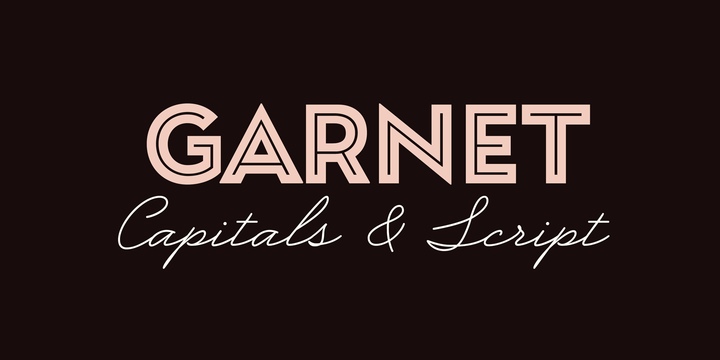
Garnet Font
Garnet Font is perfect for luxury jewelry branding, precious stone certifications, high-end fashion campaigns, wine estate logos, vintage boutique signage, romantic wedding invitations, elegant cosmetic packaging, antique auction catalogs, upscale gift shop materials, and refined anniversary celebrations.
What makes Garnet Font so exciting is its exceptional ability to embody the deep, rich elegance and timeless allure of precious gemstones through letterforms that seem to glow with inner fire and sophisticated luxury. This exquisite typeface captures the essence of rare beauty and enduring value with characters that reflect the same captivating brilliance found in perfectly cut garnets. The font's refined design elements perfectly balance classical elegance with contemporary sophistication, creating a powerful tool that communicates exclusivity, passion, and refined taste, making it an indispensable choice for brands targeting discerning audiences who appreciate authentic luxury and timeless beauty.
Garnet Font comes in multiple font families including Regular, Bold, Light, Italic, Bold Italic, Brilliant, Faceted, and Vintage variations. Each family member maintains the core precious stone characteristics while offering different luminosity levels and stylistic approaches to suit various luxury design requirements.
The jewel-like precision in Garnet Font makes it particularly suitable for luxury markets where every detail must reflect the highest standards of craftsmanship and exclusivity. Its radiant letterforms maintain excellent readability while preserving the precious stone elegance that appeals to customers seeking meaningful, beautiful, and valuable products and experiences.
Luxury design professionals appreciate how Garnet Font transforms ordinary text into precious declarations of refined taste and sophisticated quality. The typeface's brilliant character set includes special decorative elements and gem-inspired symbols that enhance the overall luxurious atmosphere of any high-end design project.
For creative professionals serving jewelry retailers, luxury brands, and premium gift markets, Garnet Font serves as the perfect foundation for establishing memorable visual identities that capture the essential qualities of precious beauty, enduring value, and sophisticated elegance that define truly exceptional luxury experiences and meaningful celebrations.